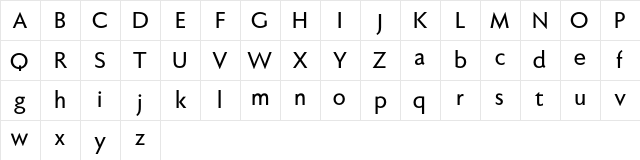
Faber Sans Pro reduced is a composed and adaptable typeface that performs quietly and consistently across a wide range of design contexts.
Who designed the Faber Sans Pro reduced 65 Kraeftig font?